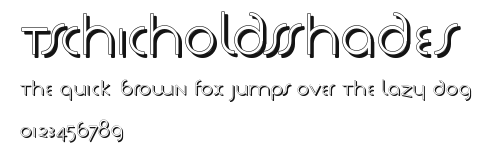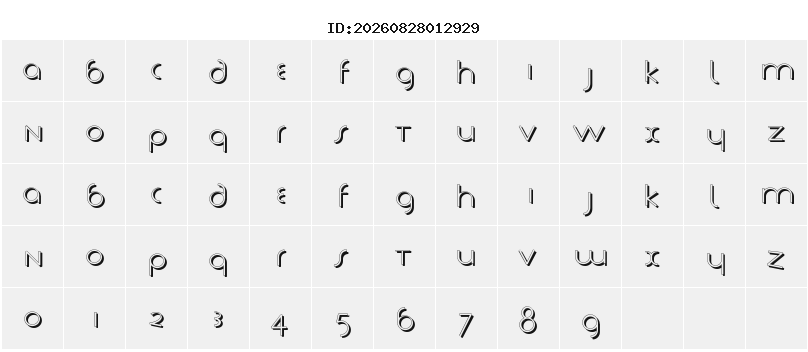
TschicholdsShades.ttf is a modern, elegant sans-serif font designed for ultimate readability and visual harmony. Perfect for branding, headlines, web design, and print materials.